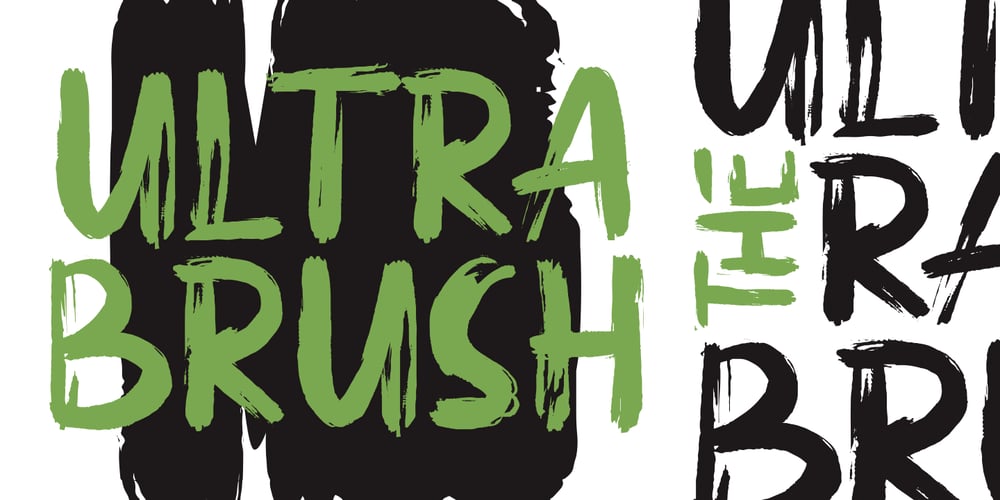
Ultra Brush Font Family was designed by Risman Ginarwan and published by Garisman Studio. Ultra Brush contains 2 styles and family package options. Ultra Brush was born from the interest of the maker of display fonts that are currently present. By using a natural dry brush, Ultra Brush was born to meet the needs of designers to make posters, tshirt, quotes, branding, packaging, logos, advertise, and etc. What will you get? – Support 20 languages and Multilanguage – More +50 swash styles – Simple Installation – Ligature Support We hope you can experiment and explore with Ultra Brush. Thank you very much for visiting